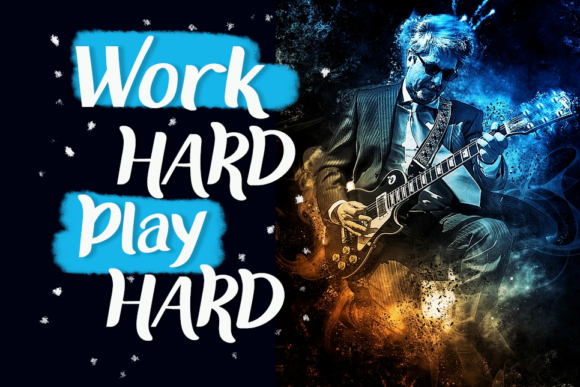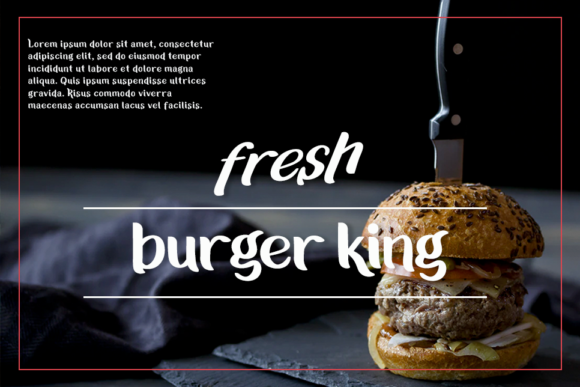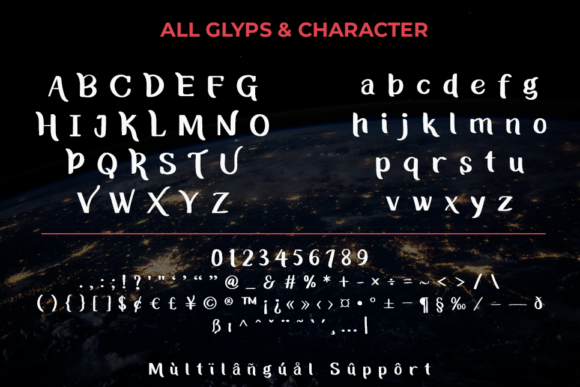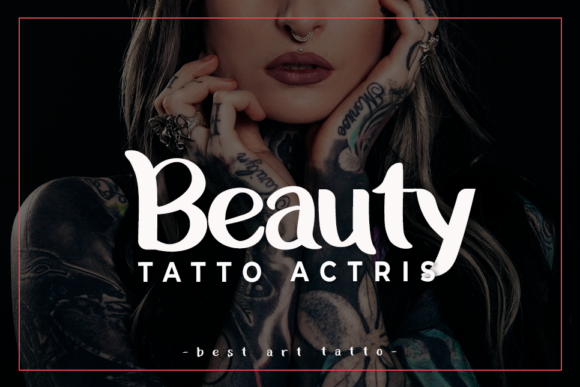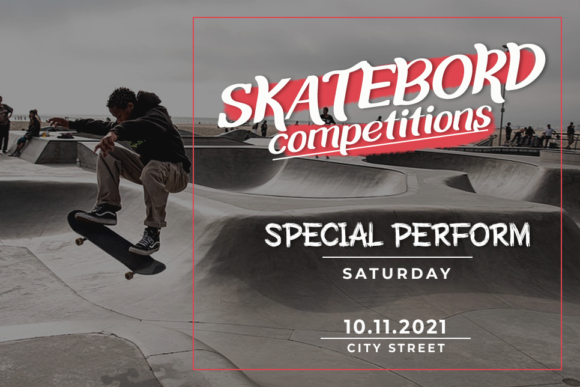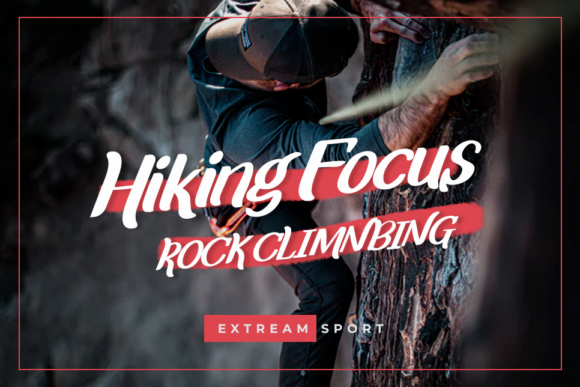
The Designer’s Delight: A Deep Dive into the Bregedel Font
I’ll never forget the time I was working on a branding project for a trendy new cafe, and I just couldn’t seem to find the perfect font. The client wanted something bold, yet elegant; something that would stand out on their menu boards and merchandise, but still convey a sense of sophistication. That’s when I stumbled upon the Bregedel font, and let me tell you, it was love at first sight! 💕
As a designer, I’ve always been on the lookout for fonts that can elevate my work and make it more engaging. And Bregedel does just that. This clean, bold handwritten font has become a staple in my design toolkit, and I’m excited to share its awesomeness with you.
So, what makes Bregedel so special? Here are a few things that I absolutely love about this font:
• ✨ **Clean and bold**: Bregedel’s chunky and extended characters make it perfect for headlines, logos, and branding materials.
• ✅ **Highly legible**: Even at smaller sizes, Bregedel remains clear and easy to read, making it versatile for various design applications.
• 💥 **Unique personality**: Bregedel has a distinct, handcrafted feel that sets it apart from more generic fonts.
Of course, no font is perfect, and Bregedel has a few minor quirks:
• 🤔 **Limited italic support**: While Bregedel has a beautiful upright style, its italic support is limited, which might be a drawback for some users.
• ⚠️ **Occasional kerning issues**: As with any font, you might encounter some kerning issues, especially when pairing Bregedel with other fonts.
The Story Behind Bregedel
Bregedel was designed with the intention of creating a font that’s both bold and elegant. Its chunky characters and extended letterforms make it perfect for headlines, logos, and branding materials. While I couldn’t find any information on the designer’s personal story, it’s clear that Bregedel was crafted with love and attention to detail.
Author twinletter
What is the best use for Bregedel? Bregedel excels in logos, branding, packaging design, and headlines. Its bold and clean design makes it perfect for designs that need a strong presence.
Is Bregedel suitable for body text? While Bregedel is highly legible, its bold design makes it better suited for headlines and titles. For body text, you might prefer a font with a lighter weight.
Does Bregedel support OpenType features? Yes, Bregedel supports OpenType features, including glyphs and stylistic alternates. You can access these features in compatible design software like Adobe Photoshop and Illustrator.
In conclusion, Bregedel is an exceptional font that’s perfect for designers, crafters, and creative hobbyists. Its unique blend of boldness and elegance makes it a versatile addition to any design toolkit. With its ease of use and advanced features, Bregedel is sure to become a favorite font for many creatives.